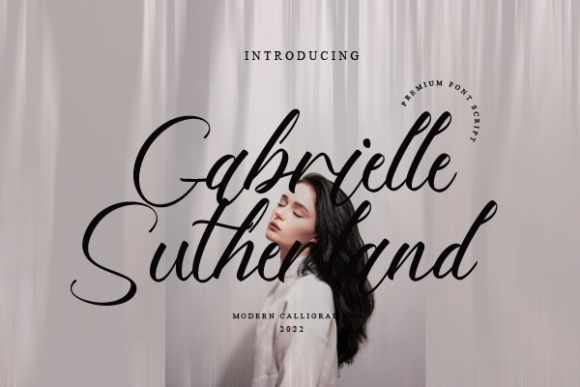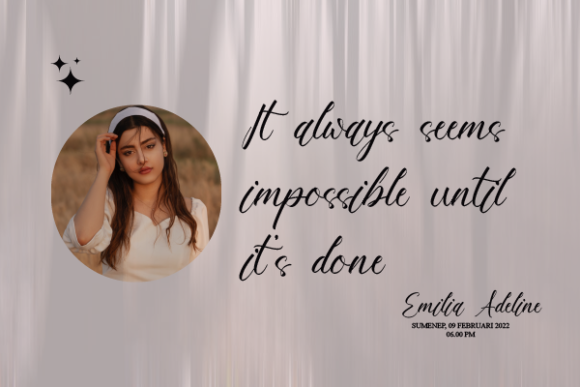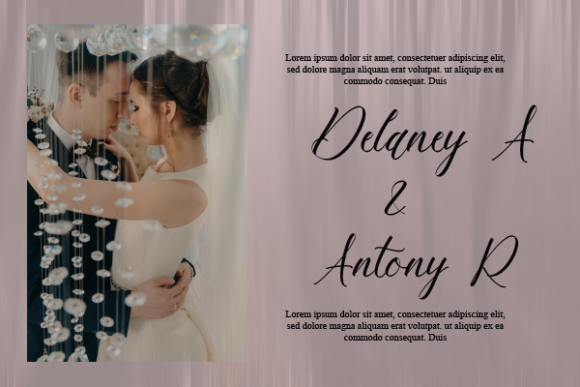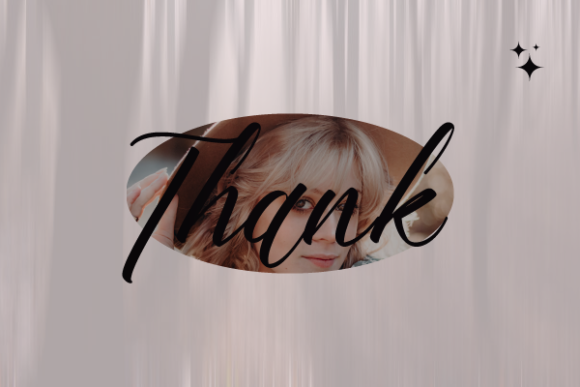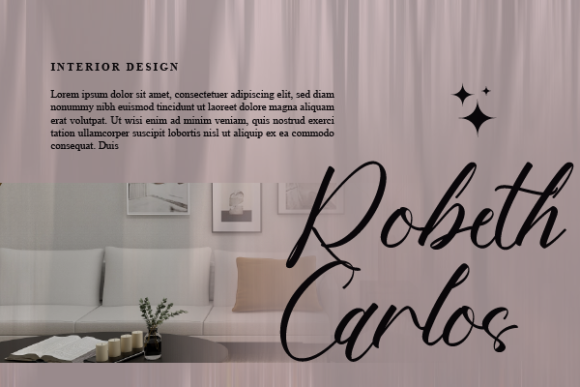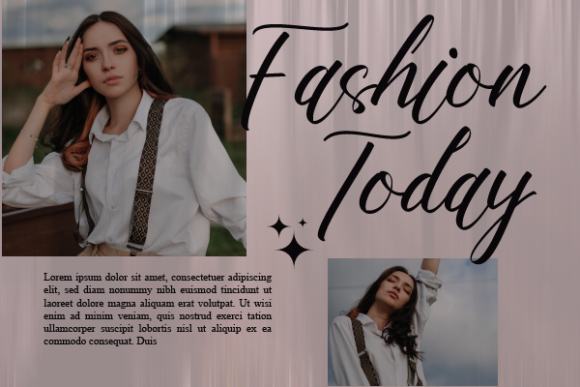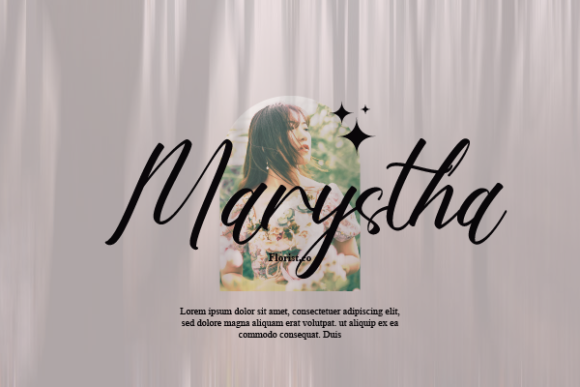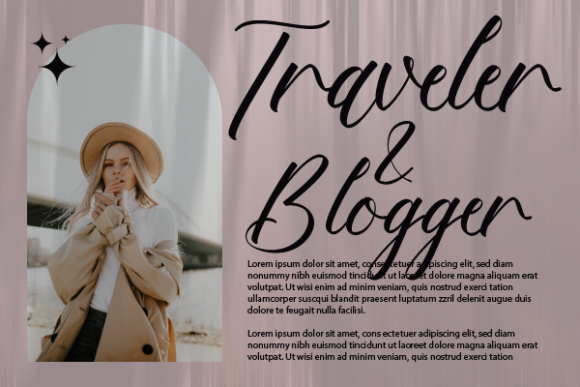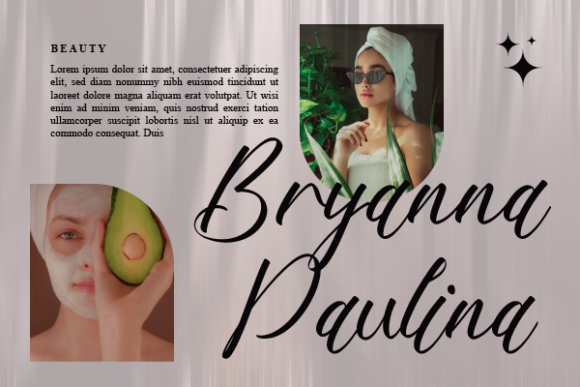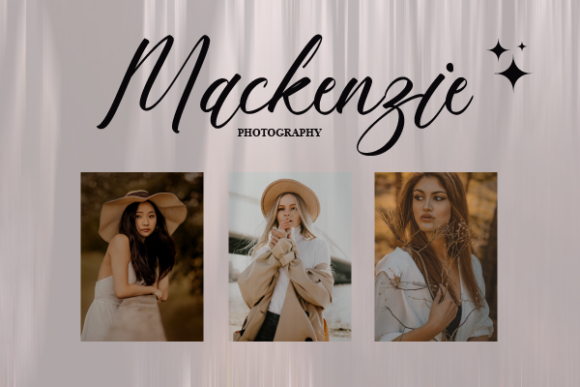
Gabrielle Sutherland Font
About Gabrielle Sutherland Font
“Gabrielle Sutherland” is an exquisite and sophisticated script font that embodies a sense of delicacy and fashion. Its graceful strokes and meticulously crafted letterforms make it an impeccable choice for a diverse range of branding projects. From creating captivating logos that leave a lasting impression to adorning t-shirts with an elegant touch, this font seamlessly integrates into various creative endeavors, ensuring that your designs stand out with a distinct and stylish flair.
The font’s versatile nature allows it to effortlessly adapt to different contexts, making it a valuable asset for your creative toolkit. Whether you’re aiming for a modern and chic aesthetic or a timeless and classic vibe, “Gabrielle Sutherland” effortlessly accommodates your vision, enhancing the overall impact of your projects.
When you incorporate “Gabrielle Sutherland” into your branding initiatives, you’re infusing them with an air of sophistication and refinement. Its intricate details and flowing curves exude a sense of elegance that resonates with your target audience, conveying a message of quality and attention to detail.
Beyond its visual appeal, “Gabrielle Sutherland” has the power to evoke emotions and set the tone for your projects. It has the ability to convey a sense of luxury, creativity, and originality that aligns with your brand’s identity. As a result, your logos, t-shirt designs, and other creative products become more than just visual elements – they become representations of your brand’s values and aspirations.
Whether you’re working on a high-end fashion brand, a trendy lifestyle label, or any other creative venture, “Gabrielle Sutherland” enhances the overall aesthetic and appeal of your projects. Its delicate and fashionable script adds a touch of elegance that captivates the imagination and leaves a memorable impression on anyone who encounters it.
Incorporating “Gabrielle Sutherland” into your creative repertoire allows you to tap into its potential for elevating your branding projects to new heights. With its delicate charm and fashionable allure, this font ensures that your designs shine with a timeless and sophisticated brilliance, making a statement that is both visually captivating and emotionally resonant.